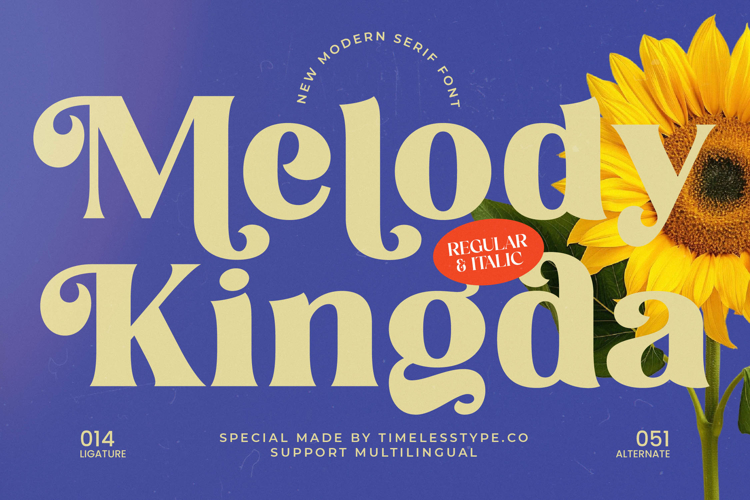
Melody Kingda - New Modern Serif Font
Elevate your design projects with a touch of timeless elegance and contemporary flair. Introducing Melody Kingda - New Modern Serif Font, a truly captivating typeface that effortlessly marries classic serif sophistication with a refreshing, playful twist. Its distinctive high-contrast strokes and beautifully flowing, exaggerated curves create an aesthetic that is both luxurious and approachable, ensuring your message leaves a lasting impression.
Unleash unparalleled creative possibilities with its rich typographic features. Melody Kingda - New Modern Serif Font boasts an impressive collection of ligatures and alternate characters, empowering designers to craft truly unique and memorable compositions. This exceptional versatility makes it an indispensable tool for achieving a customized, high-end feel in any design application.